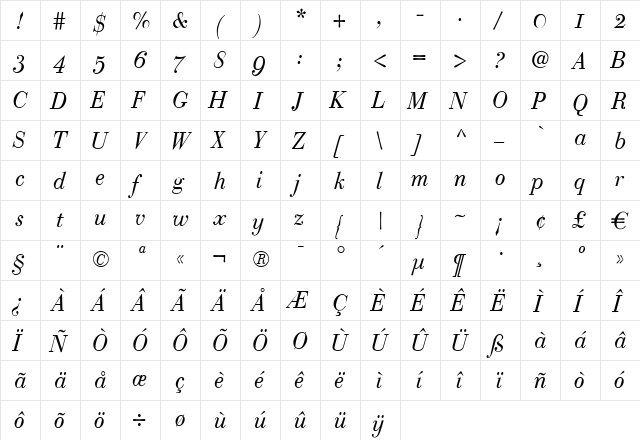
Bodoni Classic Ad Italic
Design Context for Bodoni Classic Ad Typeface
Bodoni Classic Ad wears its vintage influences proudly, with letterforms that recall mid-century signage, classic packaging, and nostalgia-driven design. The slanted form adds forward momentum and visual energy.
Ideal for diner signage, record shop branding, 70s/80s-themed projects, and heritage product labels.
Font Pairing: Combine Bodoni Classic Ad with a simple slab or neutral sans — period-accurate companions reinforce the vintage feel without competing for attention.
Pro Tip: Lean into Bodoni Classic Ad's period character by pairing it with aged paper textures, muted colour palettes, and vintage illustration styles.